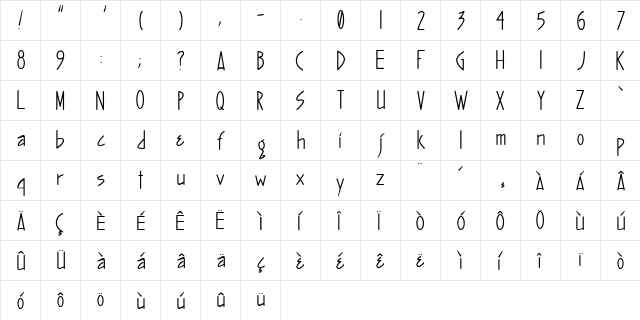
LunaMartino Medium
Design Context for LunaMartino Typeface
LunaMartino is a composed and adaptable typeface that performs quietly and consistently across a wide range of design contexts.